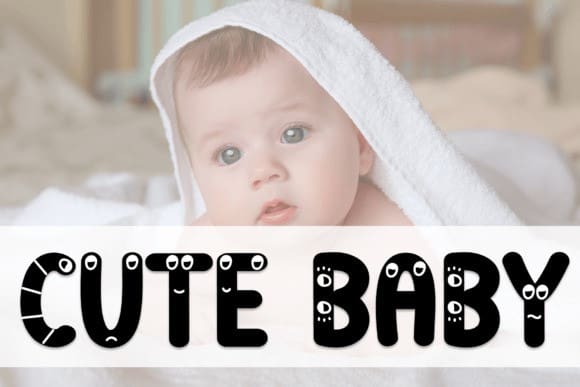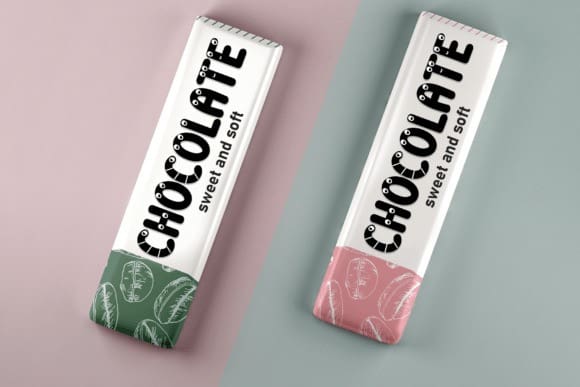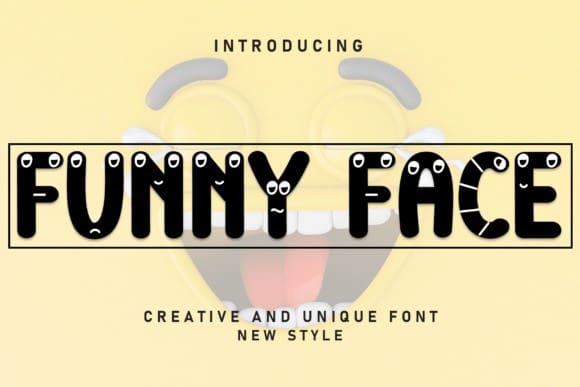
Funny Face Font
Funny Face Font is a sweet and friendly handwritten display font. Fresh and casual, this font is ideal for writing wedding invitations, cards, or any other design that might need a lovely touch.